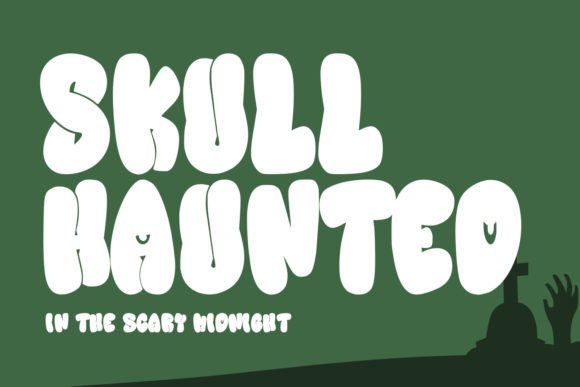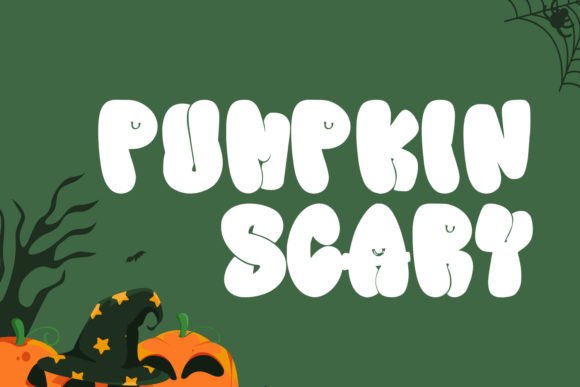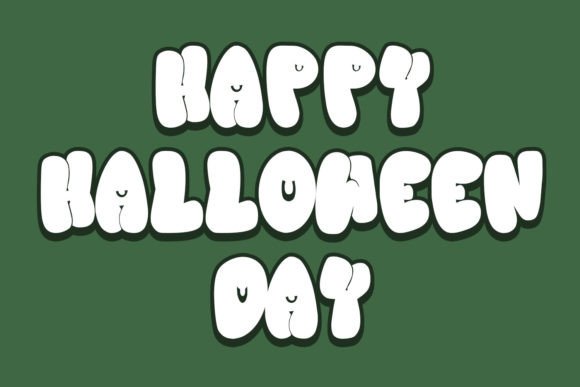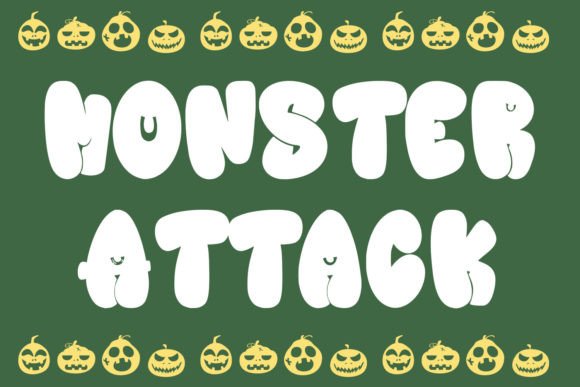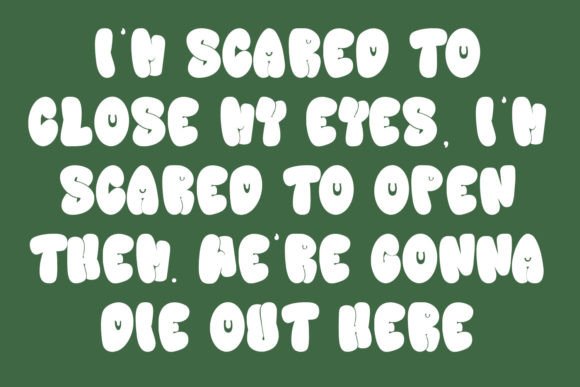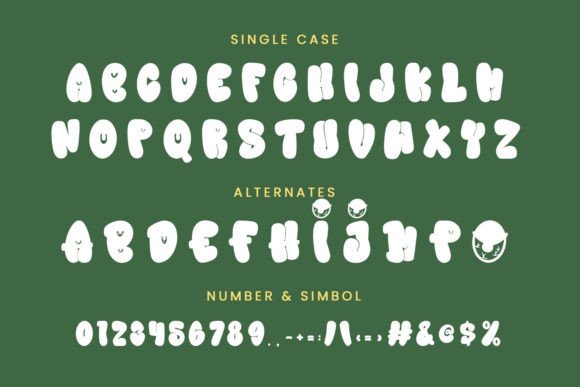
Introduction to Peek out Font Font
Peek Out is a cool, incredibly cute and bubbly display font.
Add it to each of your party invitation, swimming gathering or pretty much any design that requires a touch of youth and joy .
Key Features of Peek out Font Font